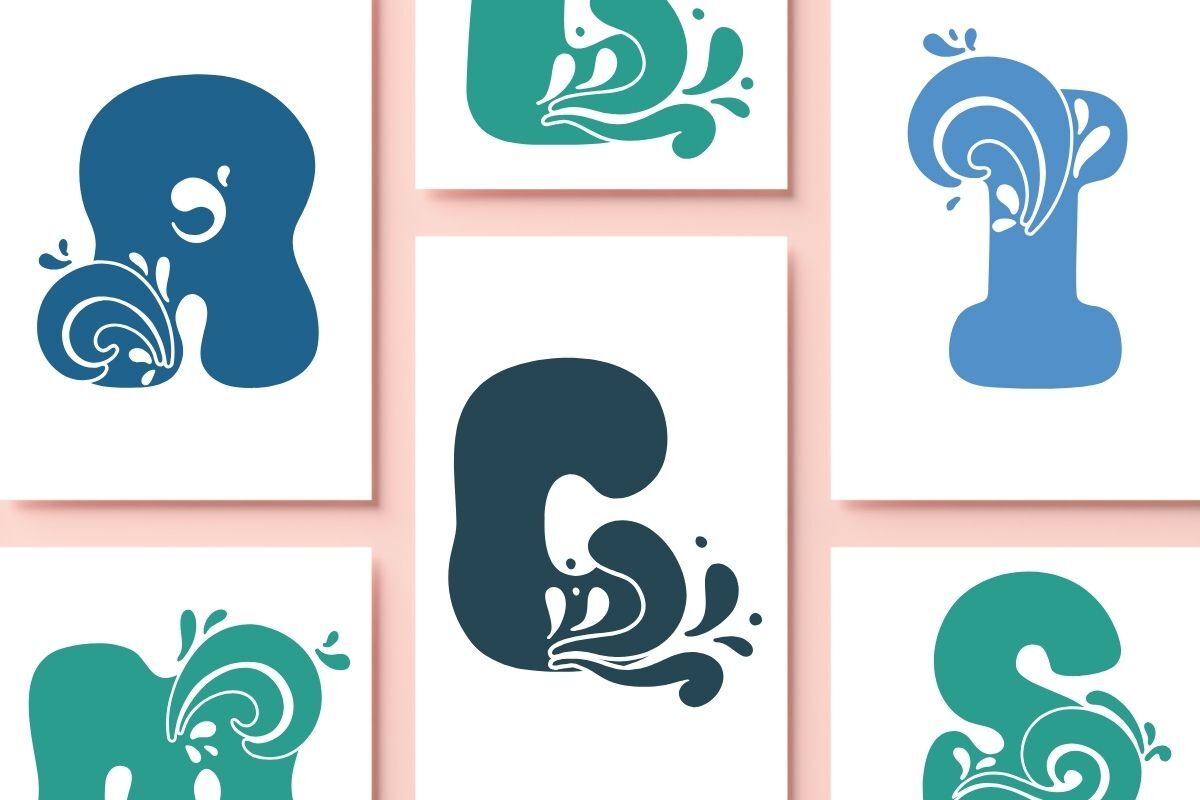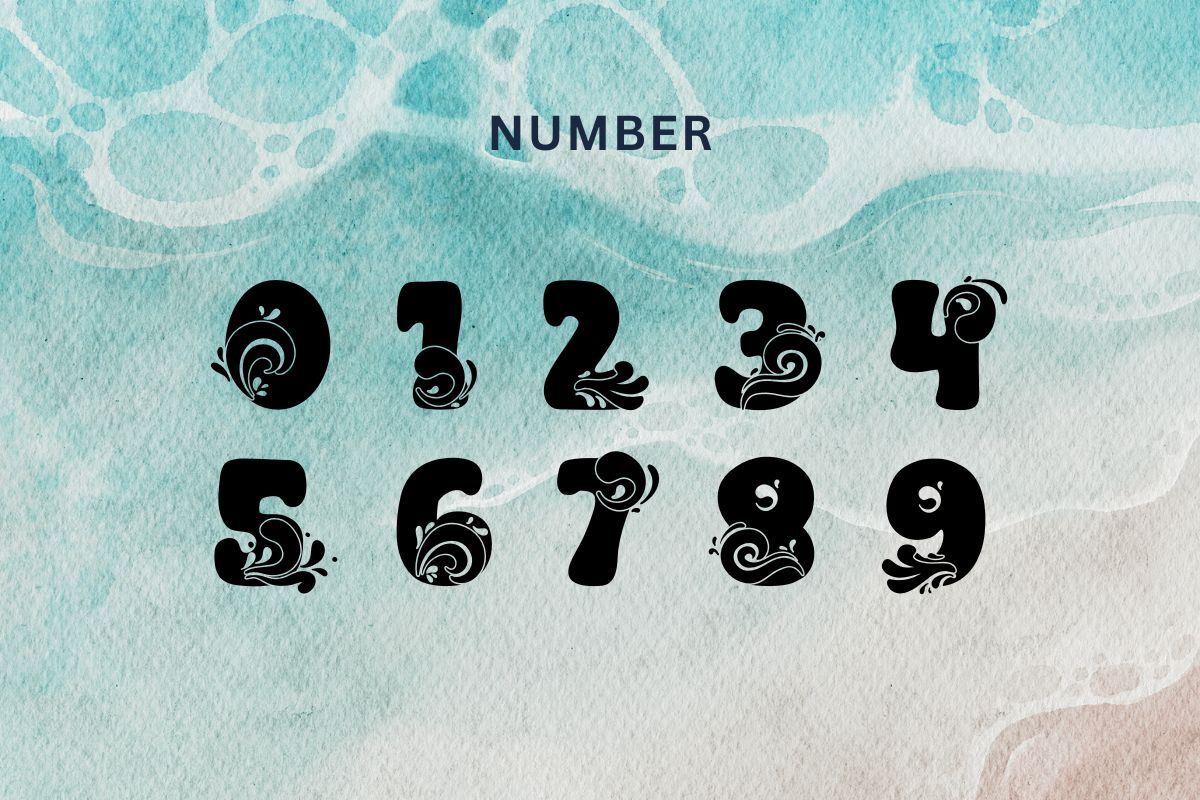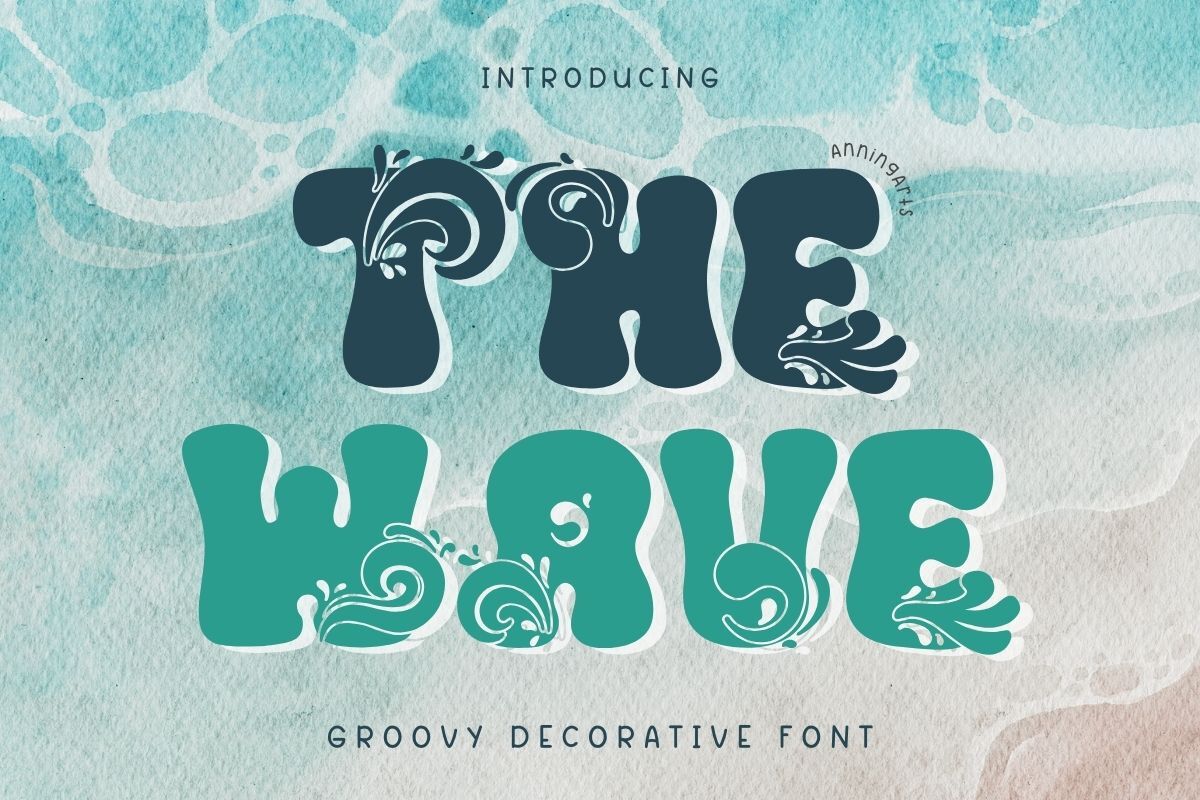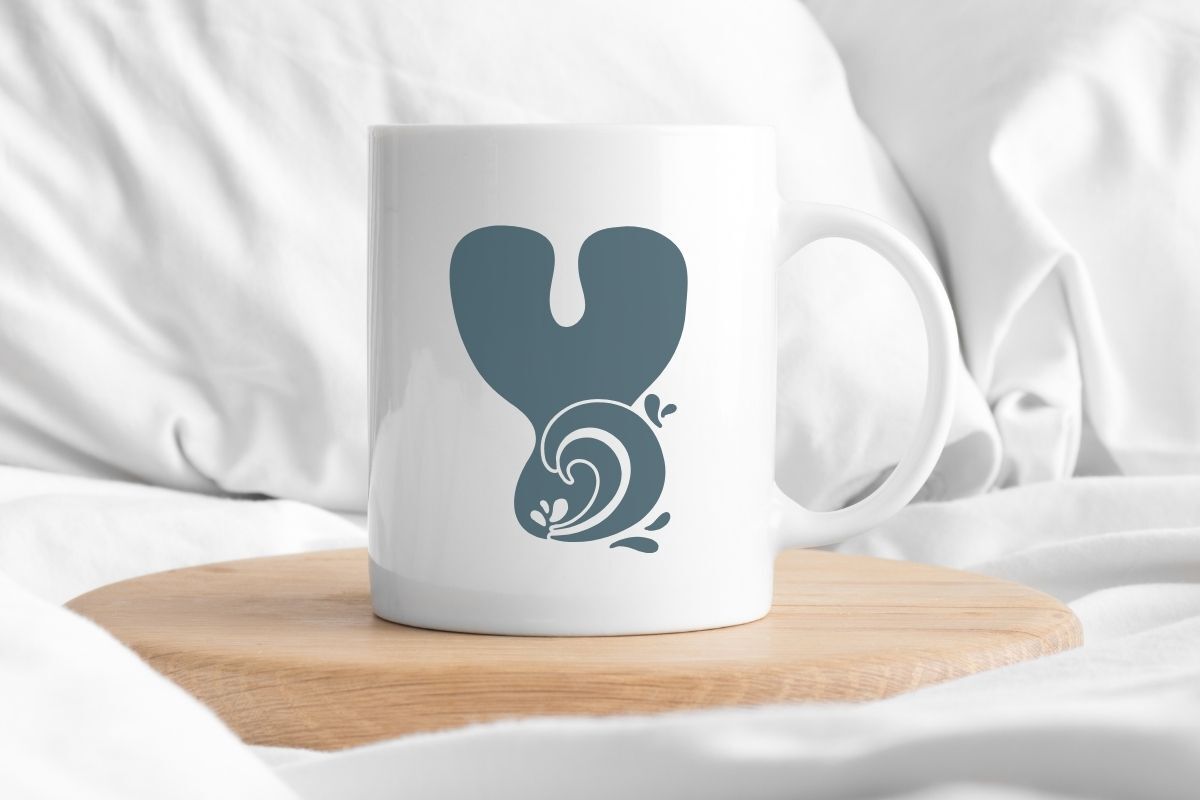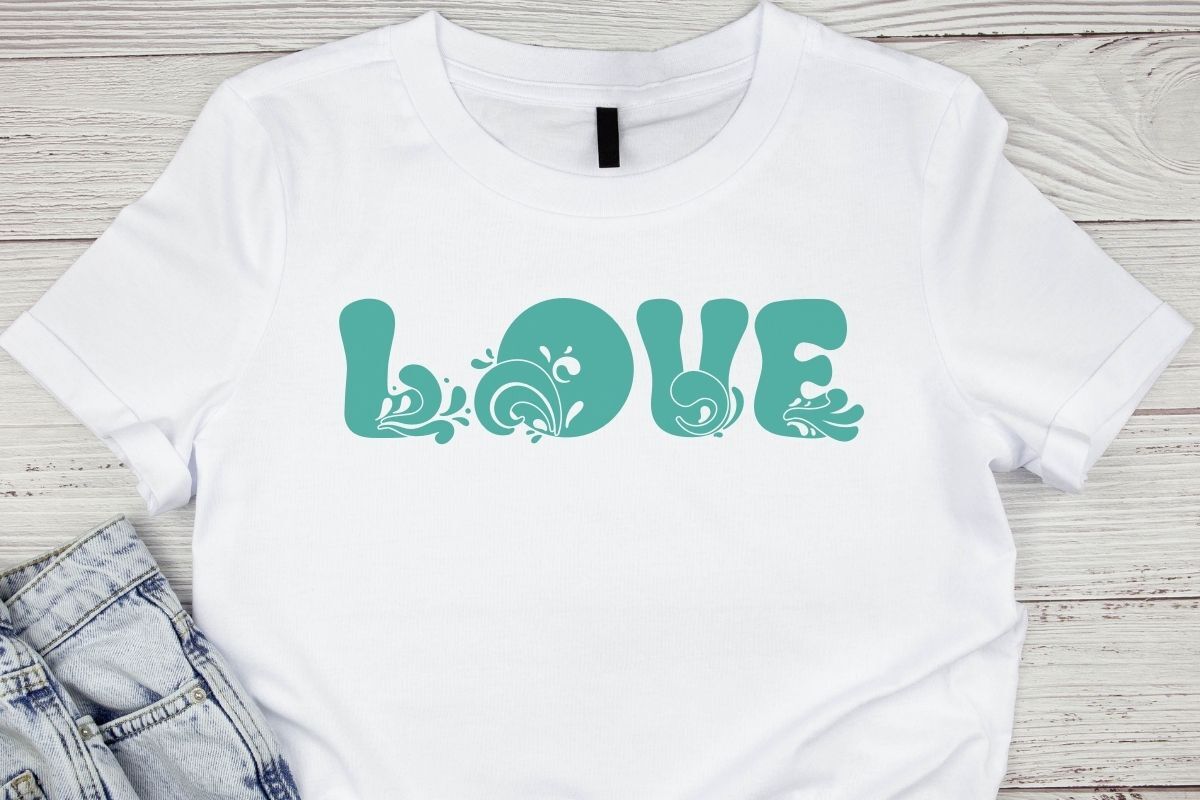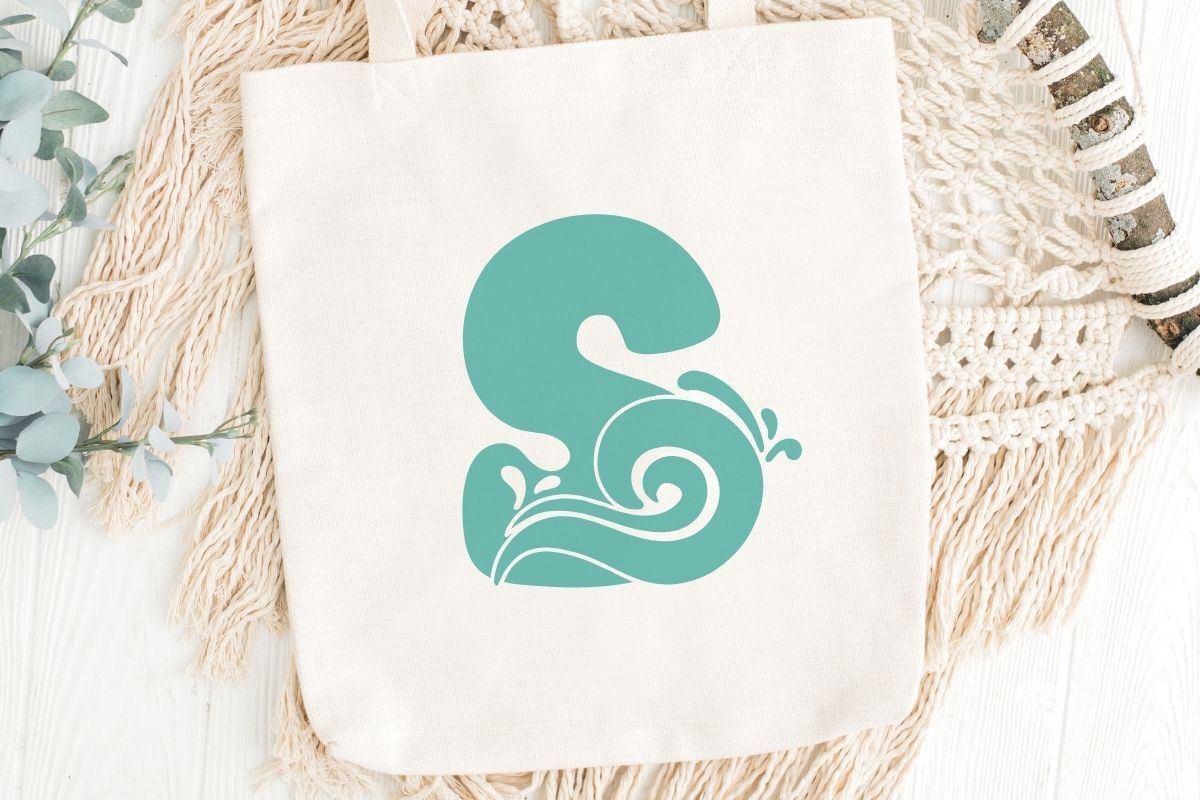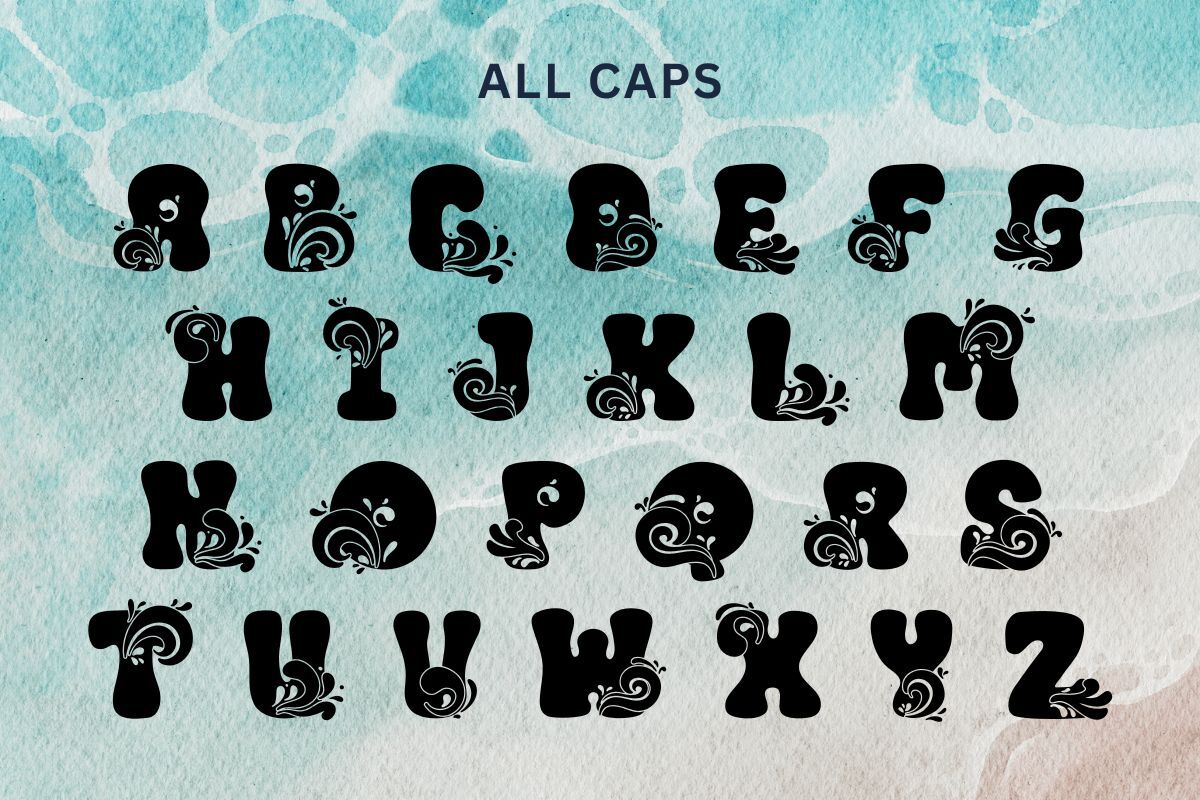
The Wave - Groovy Decorative Font
The Wave is a bold decorative font that captures a groovy, retro aesthetic inspired by ocean waves and flowing water patterns. This typeface is ideal for beach-themed designs, summer projects, surf branding, and creative typography. It features smooth, rounded letterforms adorned with intricate swirling embellishments. Its playful yet elegant style makes it perfect for posters, logos, merchandise, and editorial designs that require a touch of coastal charm.